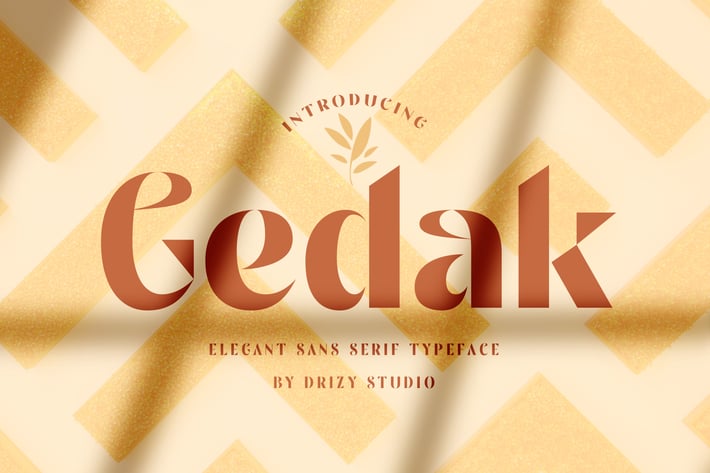
Gedak - Elegant Sans Serif Typeface
Gedak is an elegant sans serif typeface from Drizy studio. Offering all the basic styles you will need for an elegant and beauty theme.
Gedak Features:
Multilinguals & Ligatures